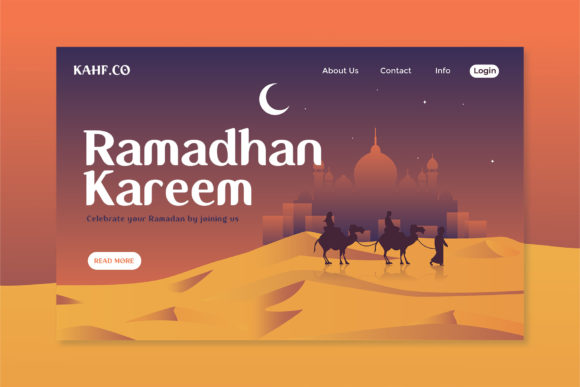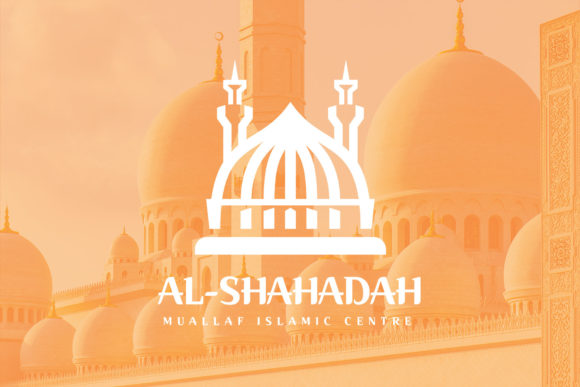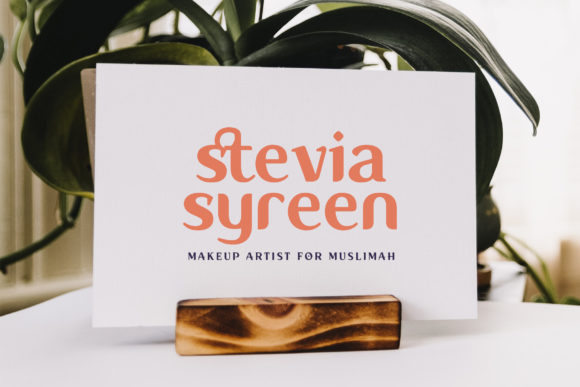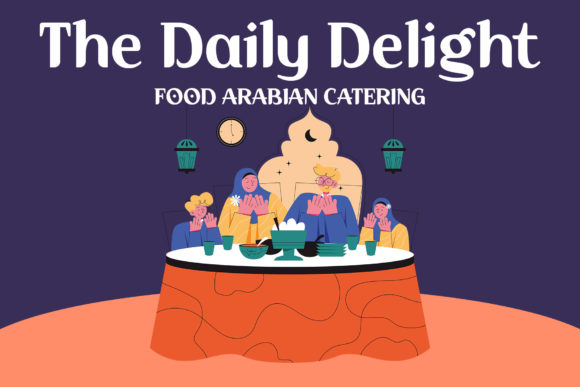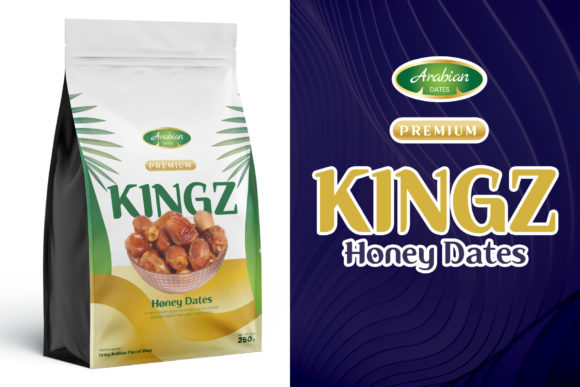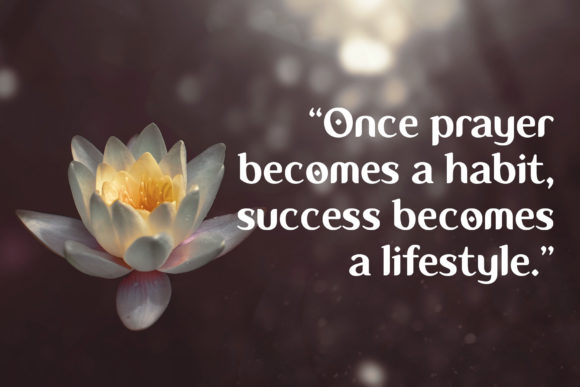
Discover the Enchanting World of Baroka Font
Are you tired of using the same old fonts in your designs? Look no further! Baroka Font is here to transport your creative projects to a magical world. This incredibly cool and unique display font is sure to captivate your audience with its modern yet whimsical style.
The Magic of Baroka Font
Baroka Font is a one-of-a-kind display font that combines modernity with a touch of playfulness. Its distinctive style is perfect for designers and crafters looking to add a dash of magic to their work. Whether you’re designing a logo, creating a poster, or crafting a social media graphic, Baroka Font is sure to make your project stand out.
Key Features of Baroka Font
- Unique and Whimsical Style: Baroka Font boasts a modern yet whimsical style that will add a touch of enchantment to your designs.
- Display Font: Designed specifically as a display font, Baroka is perfect for headlines, titles, and short text passages.
- Magical World: With Baroka Font, you can create designs that transport your audience to a magical world of wonder and awe.
- Versatile: Use Baroka Font in a variety of design projects, from logos and posters to social media graphics and more.
Why Choose Baroka Font?
With so many fonts available, why choose Baroka Font? Here are just a few reasons:
- Stand Out: Baroka Font is a unique and eye-catching font that will make your designs stand out from the crowd.
- Easy to Read: Despite its whimsical style, Baroka Font is easy to read, making it perfect for use in a variety of design projects.
- High-Quality: Baroka Font is a high-quality font that is designed to deliver exceptional results.
How to Use Baroka Font
Using Baroka Font in your designs is easy. Here are a few tips to get you started:
- Pair with Other Fonts: Pair Baroka Font with other fonts to create a unique and visually appealing design.
- Experiment with Colors: Try out different colors and color combinations to add depth and interest to your design.
- Play with Size: Experiment with different font sizes to create visual hierarchy and add emphasis to your design.
Baroka Font is perfect for designers and crafters looking to add a touch of magic to their work. Whether you’re a professional designer or a DIY crafter, Baroka Font is sure to inspire your creativity and take your designs to the next level.